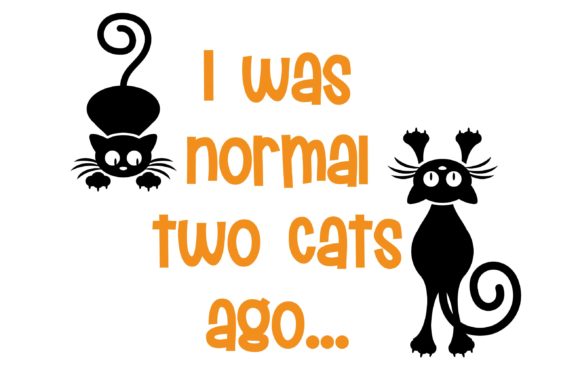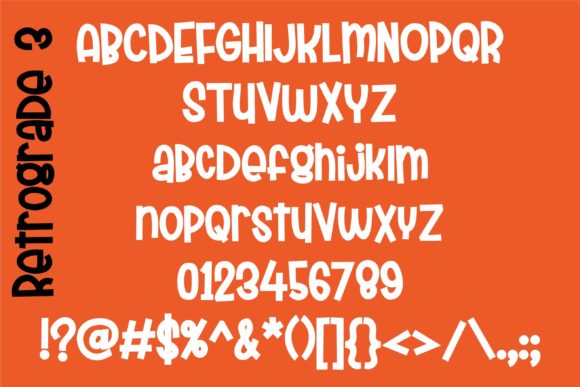
Retrograde Font
db-ku.com - Script & Handwritten -- Retrograde is a nostalgic and fun script font with a playful feel. Use it to turn any design project into a true standout.